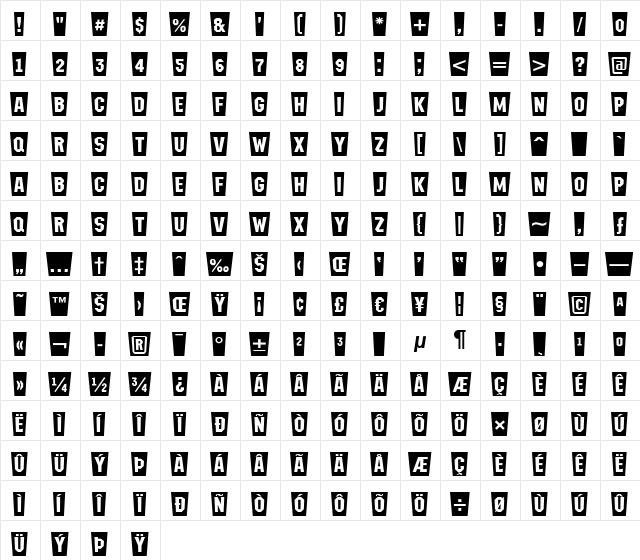
a_MeccanoCmCtBl Regular
| Designer | W.Chufarofsky & M.Slutsker |
Design Context for a_MeccanoCmCtBl Typeface
a_MeccanoCmCtBl offers clean, dependable letterforms without strong stylistic allegiance, making it a practical choice for designers who need flexibility.